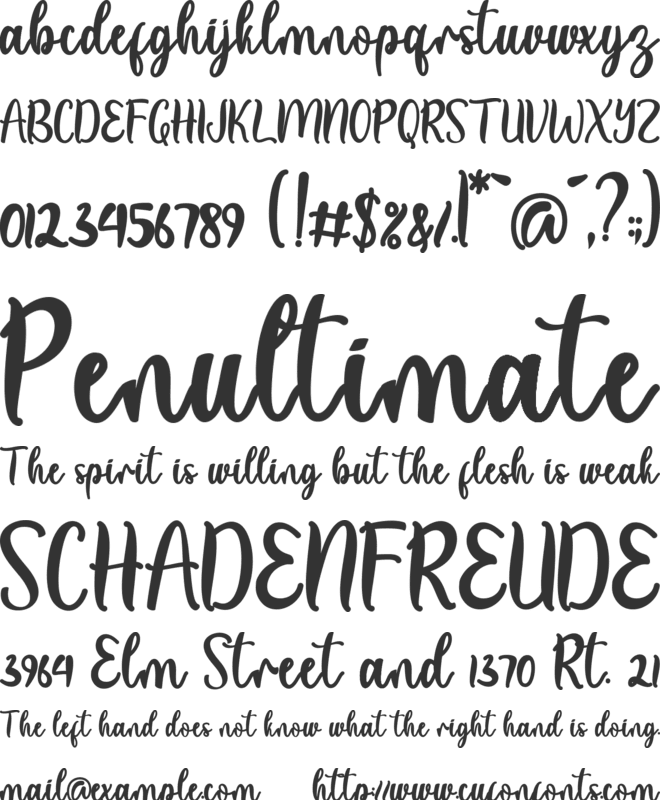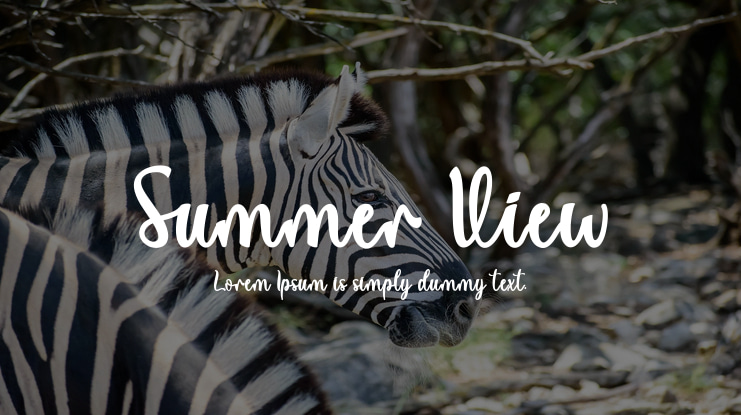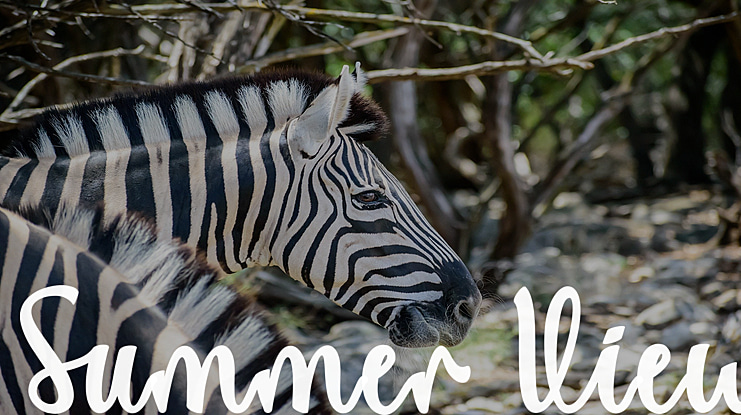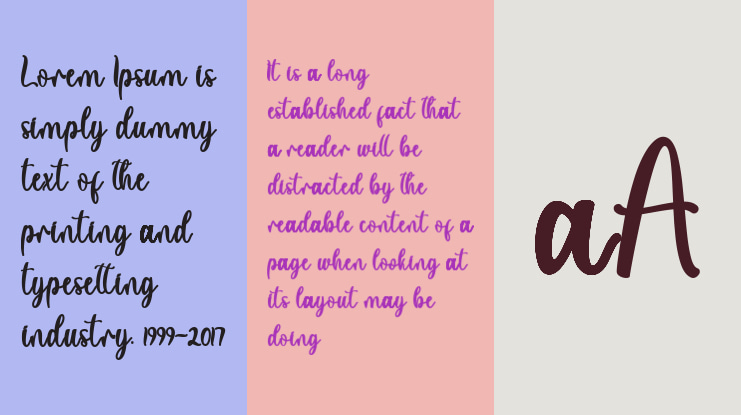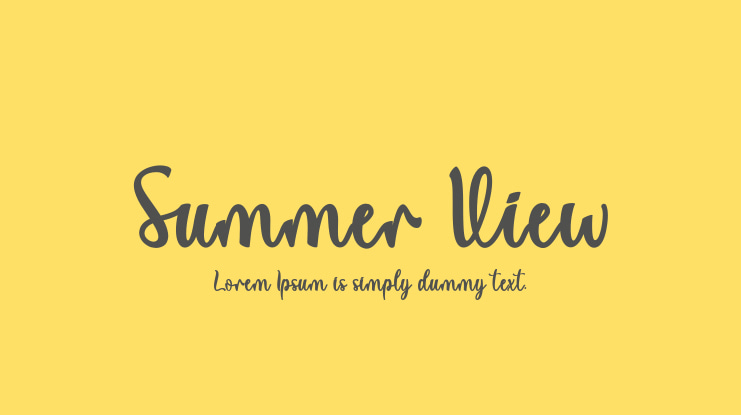
Summer View Font Family
"Summer View" is a modern handwritten script. The embellishments in this font are very easy to use because they are already designed. "Summer View" is perfect for all your needs. It is suitable for summer, spring, father day, back to school, wedding, invitations, enggagement, birthday, romantic moment, holiday, traveling, social media, quotes, business, promotion product, t-shirt, mug, logos, branding, banners, posters, prints and others.